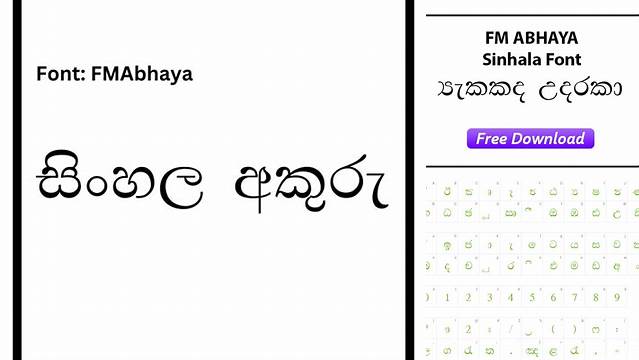
FM Abhaya Bold Font: Free Download & Usage Guide
Hey guys! Ever been on the hunt for that perfect font that just screams elegance and readability? Well, look no further! Today, we're diving deep into the world of FM Abhaya Bold, a font that's been making waves in the design community. We’re going to explore everything from where to snag a free download to how to use it like a pro. So, buckle up and let’s get started!
What is FM Abhaya Bold?
Before we jump into the download process, let's talk about what FM Abhaya Bold actually is. This font is a modern sans-serif typeface that's known for its clean lines and strong presence. It's incredibly versatile, making it a fantastic choice for everything from headlines and titles to body text. FM Abhaya Bold strikes a perfect balance between being bold and being easy on the eyes, which is why it's become a favorite among designers and typographers. When you're choosing a font, it's essential to consider readability, especially for longer texts. This font excels in this aspect, ensuring that your message is conveyed clearly and effectively. The design of FM Abhaya Bold is rooted in contemporary aesthetics, making it a perfect fit for modern designs. It has a professional yet approachable feel, which makes it suitable for a wide range of projects. Whether you're designing a website, creating marketing materials, or working on a personal project, FM Abhaya Bold can add a touch of sophistication and clarity. Using a font like FM Abhaya Bold can significantly enhance the visual appeal of your work. It provides a polished look that can make your designs stand out. The bold weight adds emphasis and draws the reader's attention, while the clean lines ensure that the text remains legible.
Why Choose FM Abhaya Bold?
Why should you choose FM Abhaya Bold over the countless other fonts out there? Great question! First off, its boldness commands attention without being overwhelming. This makes it ideal for headings, logos, and anywhere you need to make a statement. Secondly, its clean design ensures readability, whether you’re using it on a website, in a document, or on a poster. The versatility of FM Abhaya Bold is another major draw. It works wonderfully in both digital and print media, making it a reliable choice for all your design needs. Many designers appreciate how well FM Abhaya Bold pairs with other fonts. It can be used alongside serif fonts for a classic contrast or with other sans-serif fonts for a cohesive modern look. This flexibility allows you to create dynamic and visually appealing designs. Think about the impact of a well-chosen font on your brand image. FM Abhaya Bold can help convey a sense of professionalism, confidence, and clarity. It’s a font that speaks volumes without being overly flashy, making it perfect for businesses and individuals who want to project a strong yet approachable image. Choosing the right font is about more than just aesthetics; it's about communication. FM Abhaya Bold helps you communicate your message effectively by ensuring that your text is both visually appealing and easy to read. This is especially important in today's fast-paced world, where people often skim through content.
FM Abhaya Bold vs. Other Bold Fonts
Okay, so FM Abhaya Bold is great, but how does it stack up against other bold fonts? Well, it's all about the specifics. Compared to some of the super-heavy bold fonts, FM Abhaya Bold maintains a level of refinement and legibility. It’s not just about being thick; it’s about being clear and impactful. Many other bold fonts can appear clunky or overwhelming, especially in larger blocks of text. FM Abhaya Bold, on the other hand, manages to be both bold and elegant. This makes it a more versatile choice for a wider range of applications. Think about fonts like Arial Black or Impact. While they are certainly bold, they can sometimes feel a bit dated or generic. FM Abhaya Bold offers a fresh, modern alternative that stands out without being overly trendy. This is crucial for projects that need to maintain a timeless appeal. When comparing FM Abhaya Bold to other sans-serif bold fonts, you’ll notice that it has a unique character. The subtle details in its design give it a distinct personality that sets it apart from more generic options. This personality can add depth and interest to your designs, making them more memorable and engaging. The spacing and kerning of FM Abhaya Bold are also carefully considered, which contributes to its excellent readability. This is an area where many other bold fonts fall short. Poor spacing can make text look cluttered and difficult to read, which can undermine the overall effectiveness of your design.
Using FM Abhaya Bold in Design Projects
Now that you’ve got FM Abhaya Bold installed, let’s talk about how to use it in your design projects. This font is incredibly versatile, but there are a few tips to keep in mind. First, consider the overall tone and style of your project. FM Abhaya Bold works well in modern, clean designs, but it can also add a touch of sophistication to more traditional projects. Think about using it for headings and subheadings to create a strong visual hierarchy. Its boldness will draw the reader's eye and help them navigate the content. You can also use it for body text, but be sure to adjust the font size and line spacing to ensure readability. Experiment with different font pairings to find the perfect combination. FM Abhaya Bold pairs well with both serif and sans-serif fonts. Try using it with a classic serif font for a timeless look or with another sans-serif font for a modern feel. Pay attention to the contrast between the fonts. A good contrast can make your design more visually interesting and engaging. Don't be afraid to experiment with different colors and sizes. FM Abhaya Bold looks great in both light and dark colors, and its boldness ensures that it stands out even at smaller sizes. Consider using it in your logo or branding materials to create a consistent visual identity. A well-chosen font can be a powerful tool for conveying your brand's personality and values.
FM Abhaya Bold for Headlines and Titles
FM Abhaya Bold truly shines when used in headlines and titles. Its bold nature instantly grabs attention, making it perfect for drawing readers into your content. When crafting headlines, think about using FM Abhaya Bold to create a strong visual impact. The font's clean lines and modern aesthetic ensure that your message is conveyed clearly and effectively. Experiment with different font sizes to find the perfect balance between prominence and readability. A well-crafted headline can make all the difference in attracting readers and encouraging them to engage with your content. FM Abhaya Bold's versatility allows it to be used in a variety of headline styles, from minimalist and modern to bold and impactful. Consider the overall tone of your design and choose a headline style that complements it. When using FM Abhaya Bold in titles, think about how it can help establish a clear visual hierarchy. Using it for titles and subheadings can make your content easier to navigate and understand. This is especially important for longer articles or documents where readers need to be able to quickly find the information they're looking for. Pair FM Abhaya Bold with a complementary font for body text to create a cohesive and visually appealing design. A good font pairing can enhance the overall readability and aesthetic of your content.